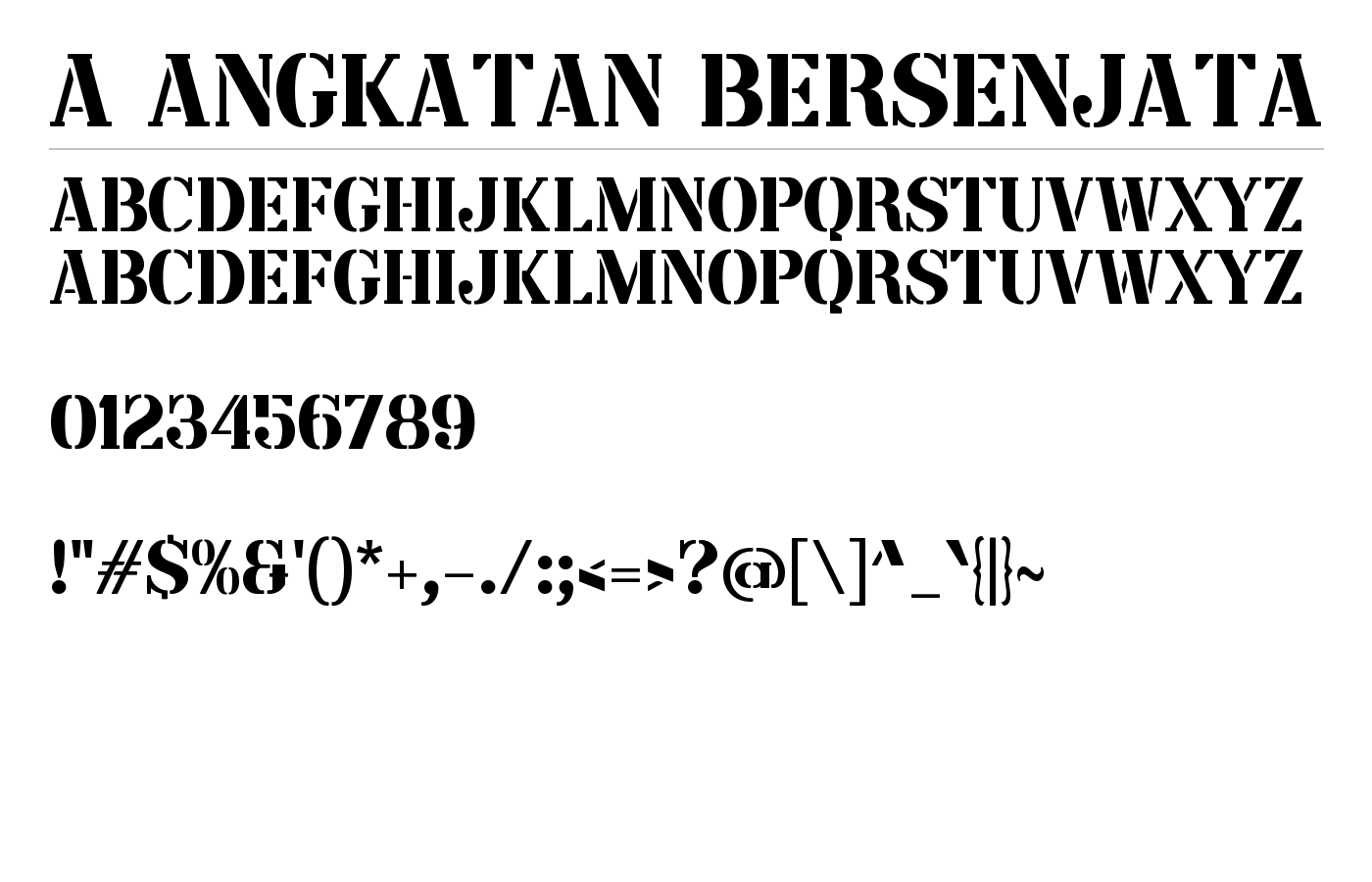
Angkatan Bersenjata is a bold, condensed stencil serif font characterized by its sharp, high-contrast strokes and precise cut-out details that evoke a strong, military-inspired aesthetic. With its all-uppercase design and striking letterforms, it conveys authority and ruggedness, making it ideal for impactful headlines, posters, and branding that require a commanding presence. This font works especially well in contexts related to defense, industrial themes, and vintage military styles where clarity and boldness are key.
a Angkatan Bersenjata Font